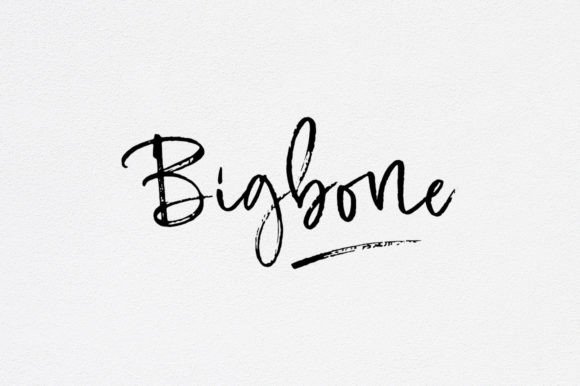
Introducing Bigbone Font: The Modern Handwritten Brush Font for Creative Minds
In the world of typography, a good font can make all the difference in bringing your creative ideas to life. If you’re a designer, crafter, or simply someone who loves to dabble in creative projects, you’re likely always on the lookout for unique and versatile fonts to add a personal touch to your work. That’s where Bigbone Font comes in – a modern and interesting handwritten brush font that’s sure to capture your heart.
What Makes Bigbone Font Stand Out?
Bigbone Font is masterfully designed to become a true favorite among creative enthusiasts. Its unique blend of modern flair and classic handwritten charm makes it perfect for a wide range of projects, from branding and advertising to crafting and DIY tutorials. With Bigbone Font, you can add a touch of personality to your work and make it stand out from the crowd.
Key Features of Bigbone Font
- Handwritten Brush Style: Bigbone Font boasts a beautiful, handwritten brush style that’s perfect for creating a personal and artistic touch.
- Modern and Fresh: This font is designed with modernity in mind, making it perfect for projects that require a fresh and contemporary look.
- Highly Versatile: Bigbone Font can be used for a wide range of projects, from digital designs to print materials, and everything in between.
- Easily Readable: Despite its artistic nature, Bigbone Font remains highly readable, making it perfect for body text and headlines.
How to Use Bigbone Font in Your Projects
Bigbone Font is incredibly versatile and can be used in a variety of creative projects. Here are a few ideas to get you started:
- Branding and Logo Design: Use Bigbone Font to create a unique and memorable logo for your business or brand.
- Social Media Graphics: Add a personal touch to your social media graphics, such as Instagram posts and Facebook headers, with Bigbone Font.
- Crafting and DIY Tutorials: Use Bigbone Font to add a creative touch to your crafting and DIY tutorials, such as knitting patterns and recipe cards.
- Digital Art and Illustration: Combine Bigbone Font with your digital art and illustration skills to create stunning and unique pieces.
Tips for Getting the Most Out of Bigbone Font
To get the most out of Bigbone Font, here are a few tips to keep in mind:
- Experiment with Colors: Bigbone Font looks great in a variety of colors, so don’t be afraid to experiment and find the perfect hue for your project.
- Play with Pairings: Try pairing Bigbone Font with other fonts to create a unique and interesting contrast.
- Pay Attention to Spacing: Make sure to adjust the spacing between letters and words to ensure that your text is easy to read and visually appealing.
| Font Name | Bigbone Font |
| Author | Area Type |
Bigbone Font is a modern and interesting handwritten brush font that’s sure to bring your creative ideas to the highest level. With its unique blend of modern flair and classic handwritten charm, this font is perfect for designers, crafters, and anyone looking to add a personal touch to their work. Whether you’re working on a branding project, social media graphics, or digital art, Bigbone Font is a versatile and beautiful choice that’s sure to impress.